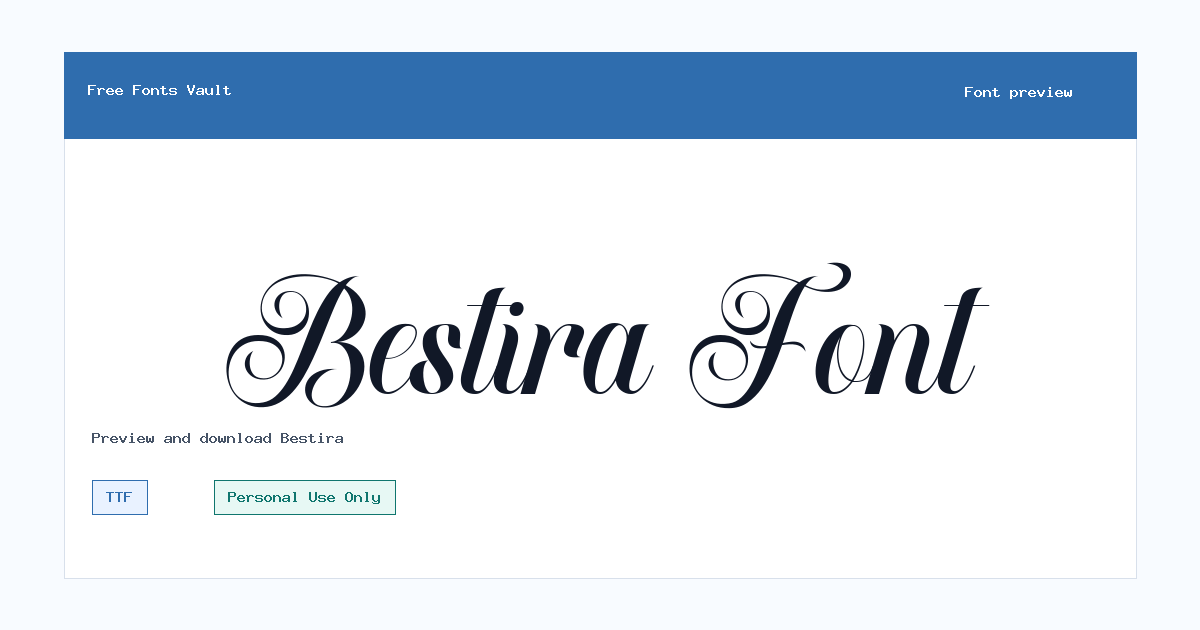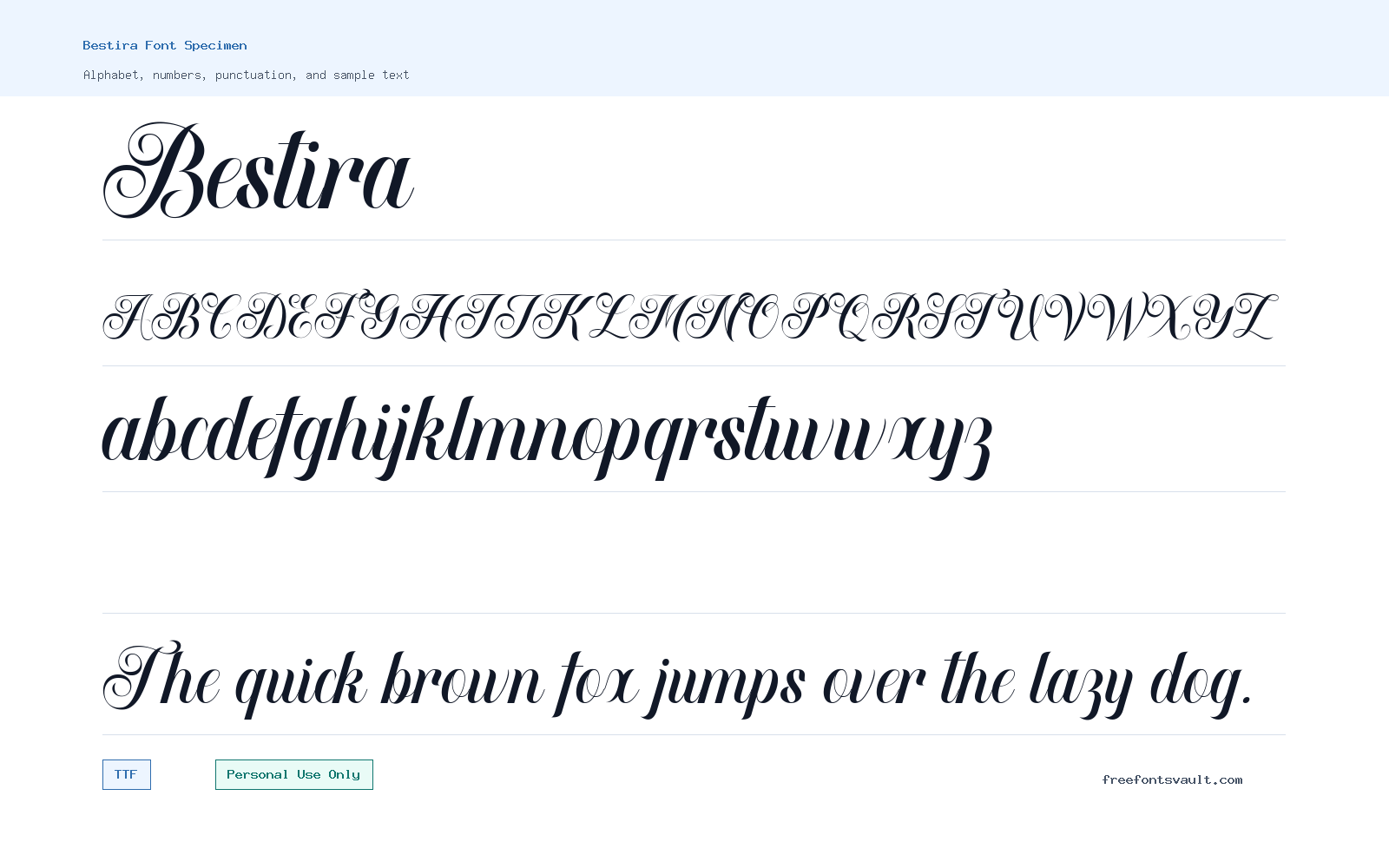
Bestira
Bestira font.
Bestira is a script-style font with a regular TTF file for personal projects. Its slanted letterforms make it better suited to short display text than long reading, so it is a font to test carefully in the preview before downloading.
About Bestira Font
Bestira uses a connected script look, with a strong forward angle and a handwritten feel. The font file identifies the family as BESTIRA SCRIPT Regular, which points to a decorative script style rather than a plain text face. Use it when you want a softer, more personal look in headings, names, invitation-style wording, social graphics, quote cards, packaging mockups, or logo concept drafts for private testing.
Because script fonts can lose clarity when used too small, Bestira works best in short words, names, initials, and brief phrases. Try your exact text in the preview before using it in a design. Pay attention to letter joins, repeated letters, uppercase words, and narrow spacing. If a phrase feels crowded, increase tracking slightly, use a larger size, or shorten the wording. For longer copy, pair Bestira with a simple sans serif or serif font that stays easy to read.
- Script-style design with a forward slant, suited to decorative display text
- Personal invitation drafts, quote graphics, name designs, and social media images
- Short headings, signature-style text, labels, and creative mockups
The designer is listed as FLAWLESSANDCO. No foundry or designer website is listed for the font information on this page.
What kind of font is Bestira?
Bestira is a script-style font. The font file names it BESTIRA SCRIPT Regular, and it is best treated as a decorative display font.
Is Bestira good for paragraphs?
It is not ideal for paragraphs. Use it for short decorative text and pair it with a simpler font for longer reading.